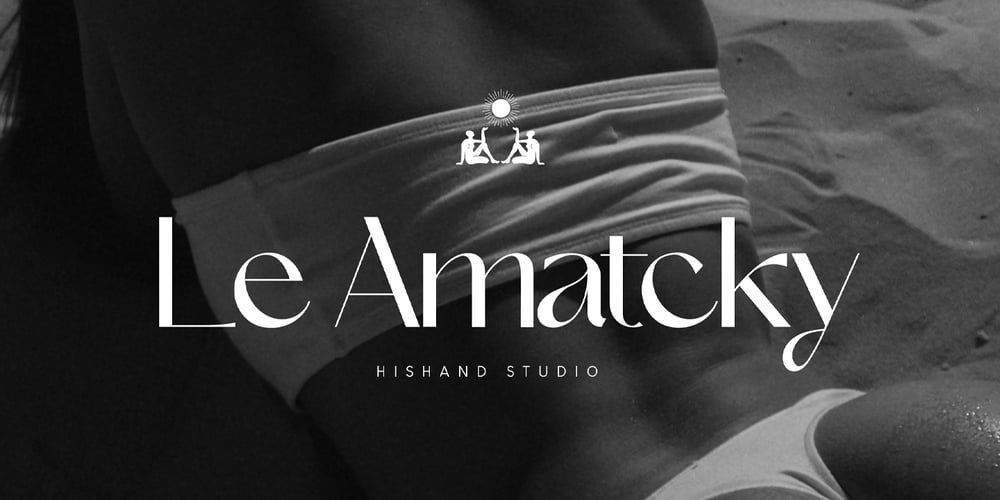
Le Amatcky Font Family was designed by Putu Dody Permana and published by Hishand Studio. Le Amatcky contains 3 styles and family package options. Le Amatcky is elegant sans serif typeface that look aesthetic. Perfect for Logo brand, advertisement, product packaging, social media post, clothing brand, magazine headers and many morecomplete with ligatures alternates regular italic icon kerning multilingual support